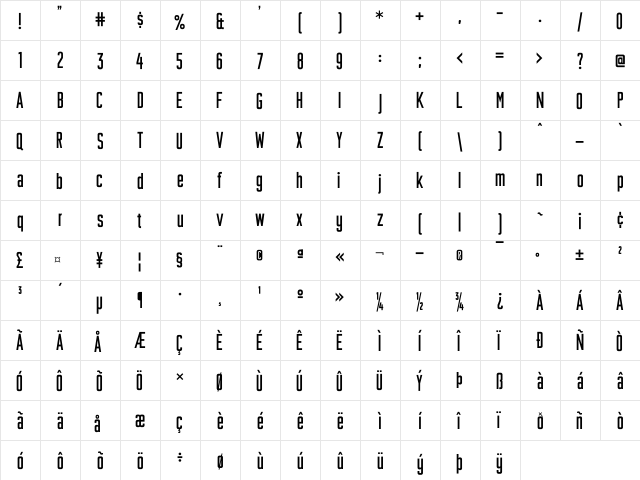
Plakative Grotesk Medium
Design Context for Plakative Grotesk Typeface
Plakative Grotesk takes a clean, functional approach — its unadorned letterforms prioritise legibility and work reliably across screen and print environments.
Font Pairing: Works well alongside a characterful serif or display font that can carry the expressive load while Plakative Grotesk handles the functional copy.
Pro Tip: Use Plakative Grotesk for UI labels, navigation, and short-form body copy where clean legibility is the priority.